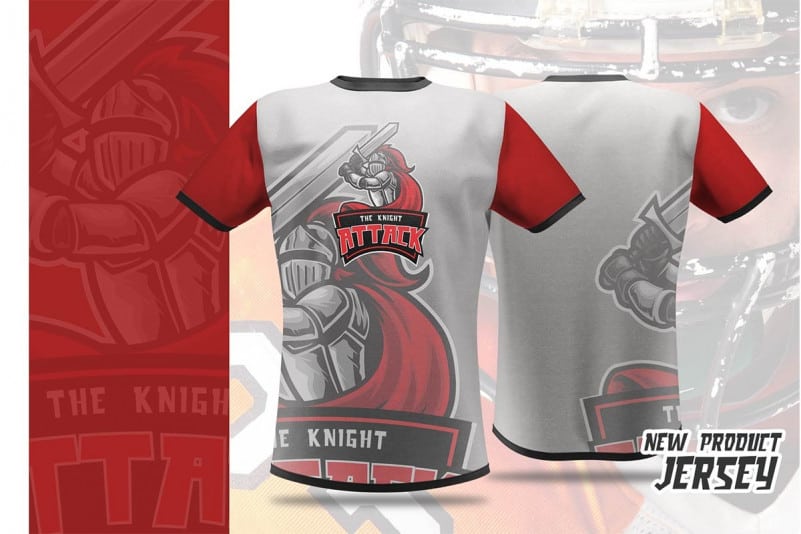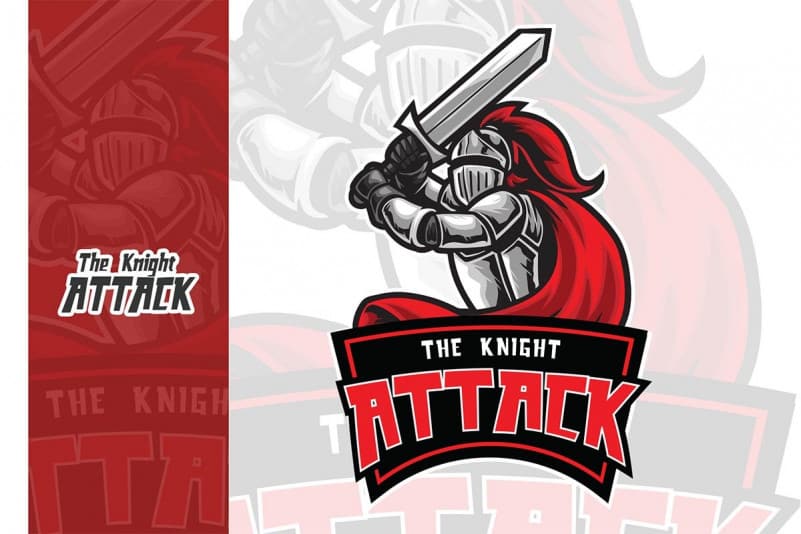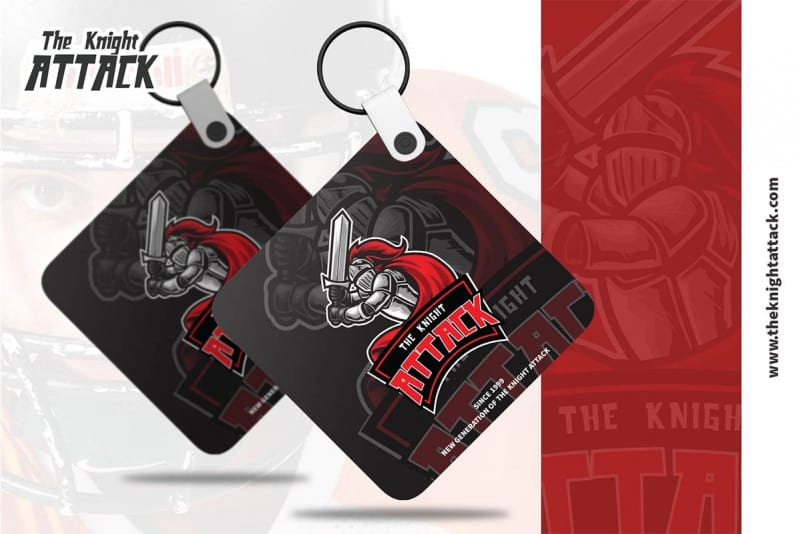
Armstrong Display Font
Armstrong Display Font is a playful paper cut look and feel display typeface. It’s designed and shared by fontkong. Very suitable as to make adorable invitation for wedding, birthday, special day. A collection of letters and numbers suitable your projects also great for Logotype, Branding Design, Logo Design, Digital Lettering Arts, T-Shirt/Apparel, Poster, Magazine, Signs, Advertising Design, and also perfect for your other projects branding.